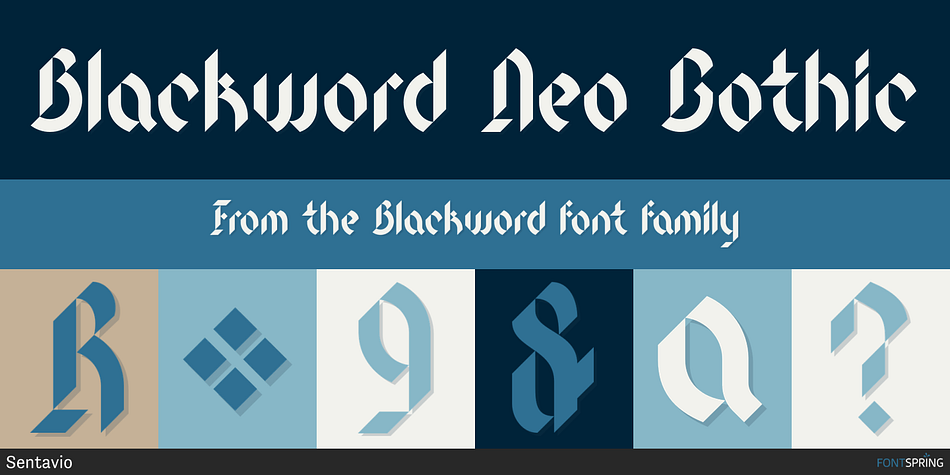
Blackword Neo Gothic
Blackword is a blackletter font family. This typeface has two styles and was published by Sentavio.
Blackword is an futuristic modern neogothic font based on strong blackletter traditions.
Multilingual support (All Latin Languages).
Well to use in Poster, Logos & Monograms. Vintage Labels & Badges, Headline, Packaging Branding and much more.